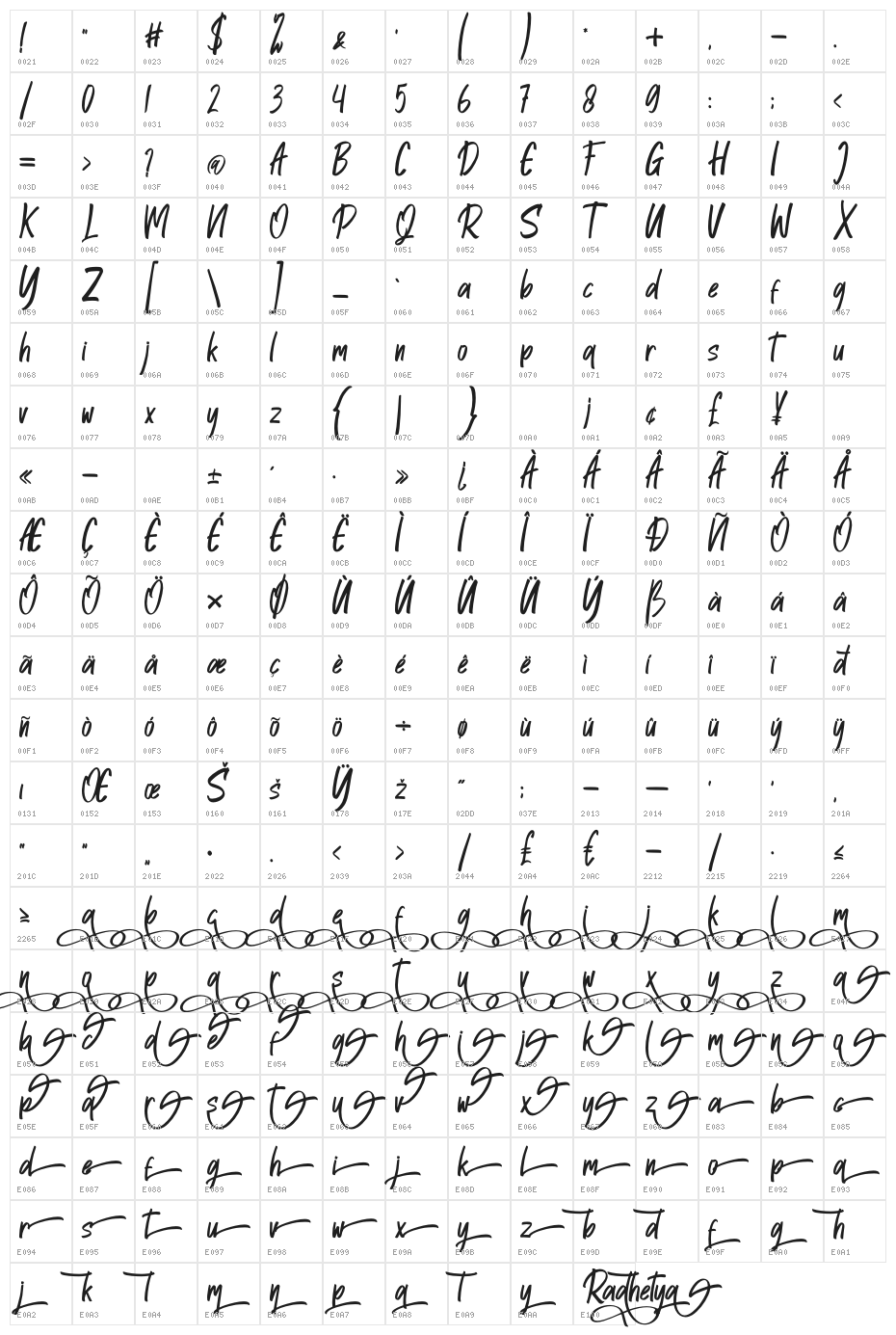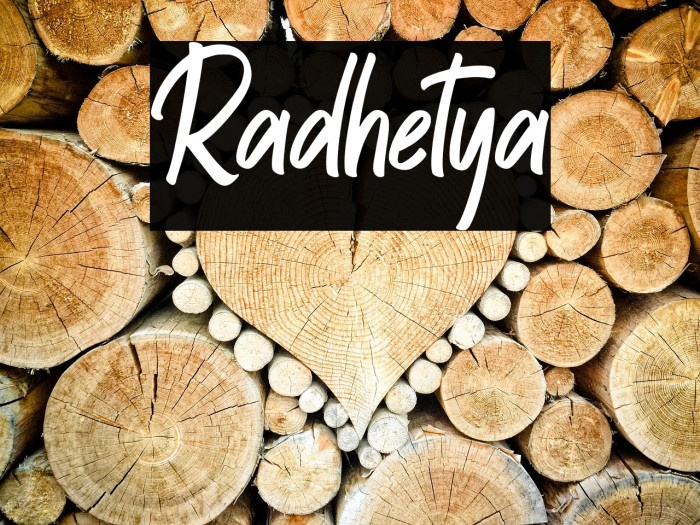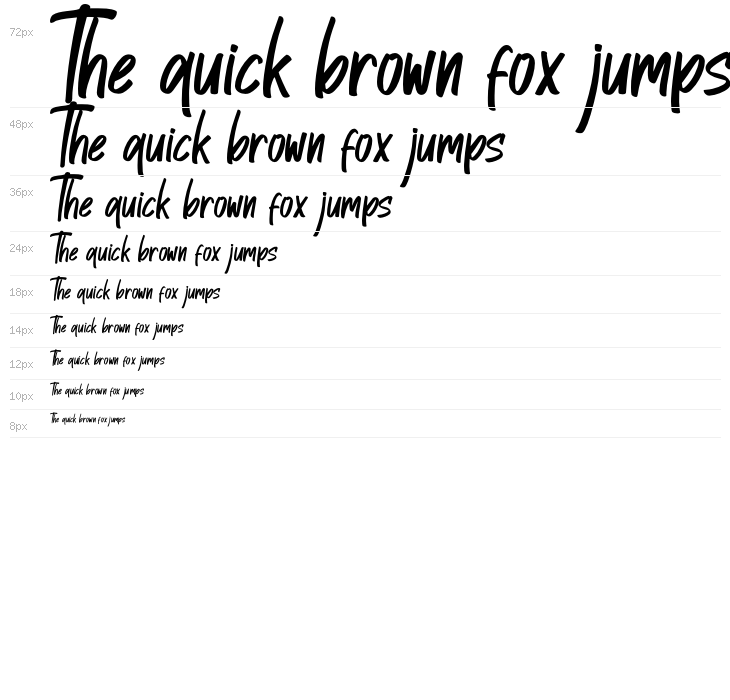
Radhetya Font
Radhetya Description
A bold, handwritten script font with a casual and energetic style, featuring smooth curves and a dynamic flow.
| Overall Style | Casual, Energetic |
| Proposed Projects | Greeting cards, invitations, posters, branding. |